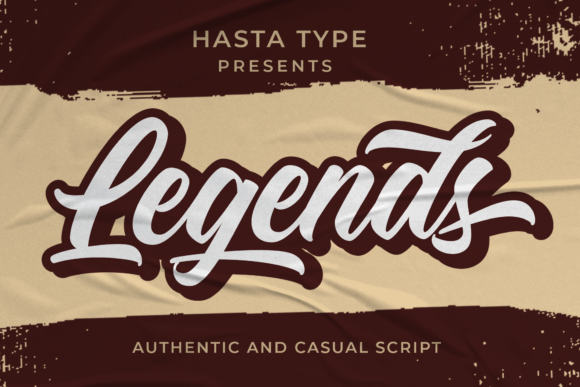
Journey into the realm of expressive typography with Legends Font, a captivating handwritten font that exudes authenticity and charm. Crafted with meticulous care by IklazStudio, this font breathes life and personality into your creative projects.
Unveil the magic of the Legends Font, a graceful script font that beckons you to explore its captivating curves and enchanting ligatures. Perfectly suited for logos, branding, product packaging, and an array of other projects, Legends Font is your gateway to remarkable visual communication.
Harness the power of Legends Font to craft logos that speak volumes about your brand's essence, leaving an indelible mark on your audience's minds. Design branding materials that radiate warmth and authenticity, creating a deep connection with your customers. Transform product packaging into miniature works of art, captivating the eyes and hearts of consumers.
With Legends Font at your disposal, you hold the key to unlocking a world of creative possibilities. Embark on a typographic adventure, where words dance and emotions soar. Let your imagination run wild as you craft social media posts, greeting cards, invitations, and other digital designs that captivate and inspire.